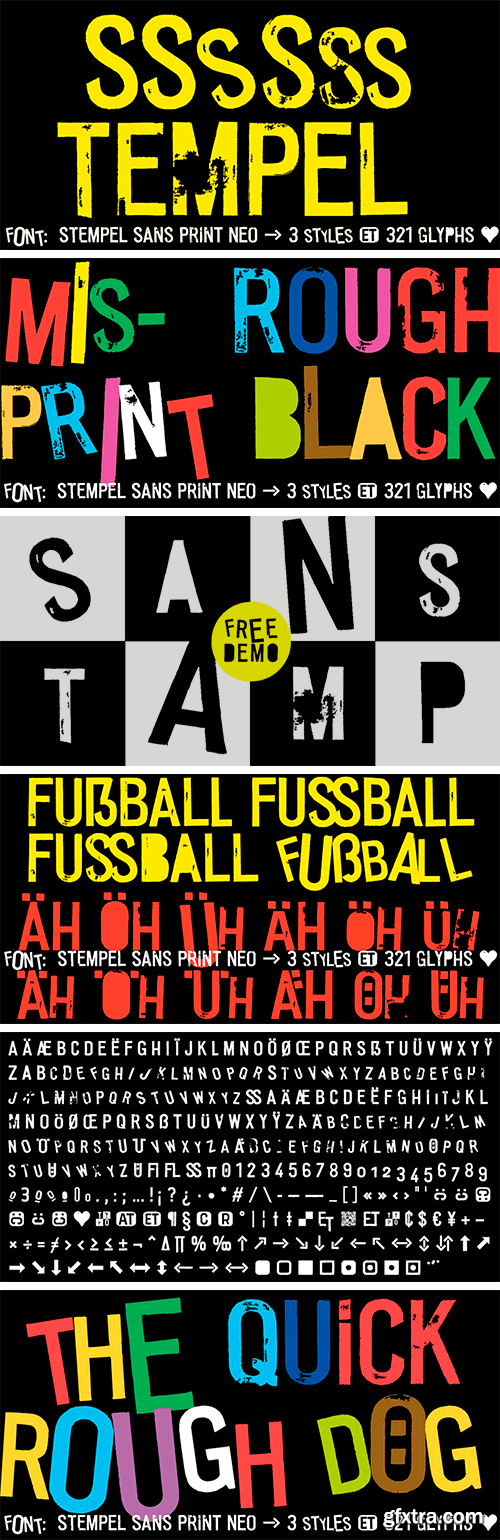
The typeface Stempel Sans Print Neo is designed from 2022 for the font foundry Typo Graphic Design by Manuel Viergutz. The display font based on a original set of 29 old rubber stamps (6 cm height). Digitized via hand-stamped, a scanner and Glyphs app. 3 font-styles (Rough, Misprint, Black) with 321 glyphs incl. decorative extras like icons, arrows, dingbats, emojis, symbols, geometric shapes and stylistic alternates (6 stylistic sets). For use in logos, magazines, posters, advertisement plus as webfont for decorative headlines. The font works best for display size.